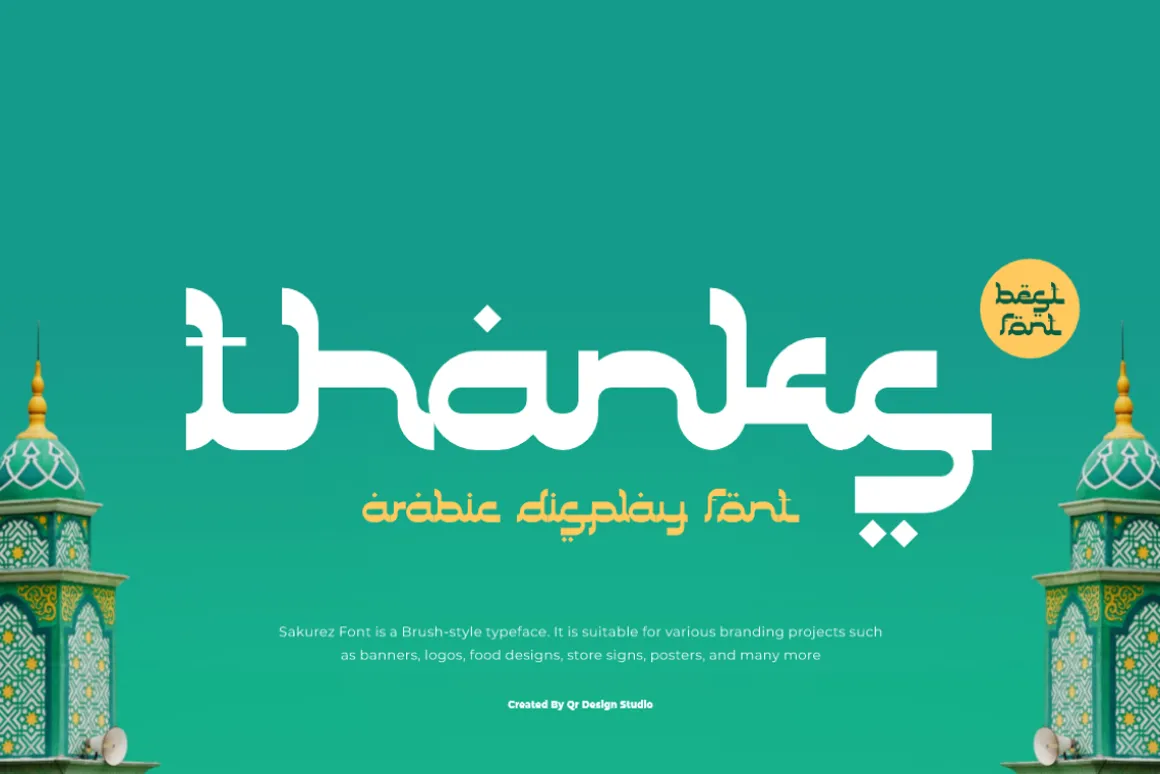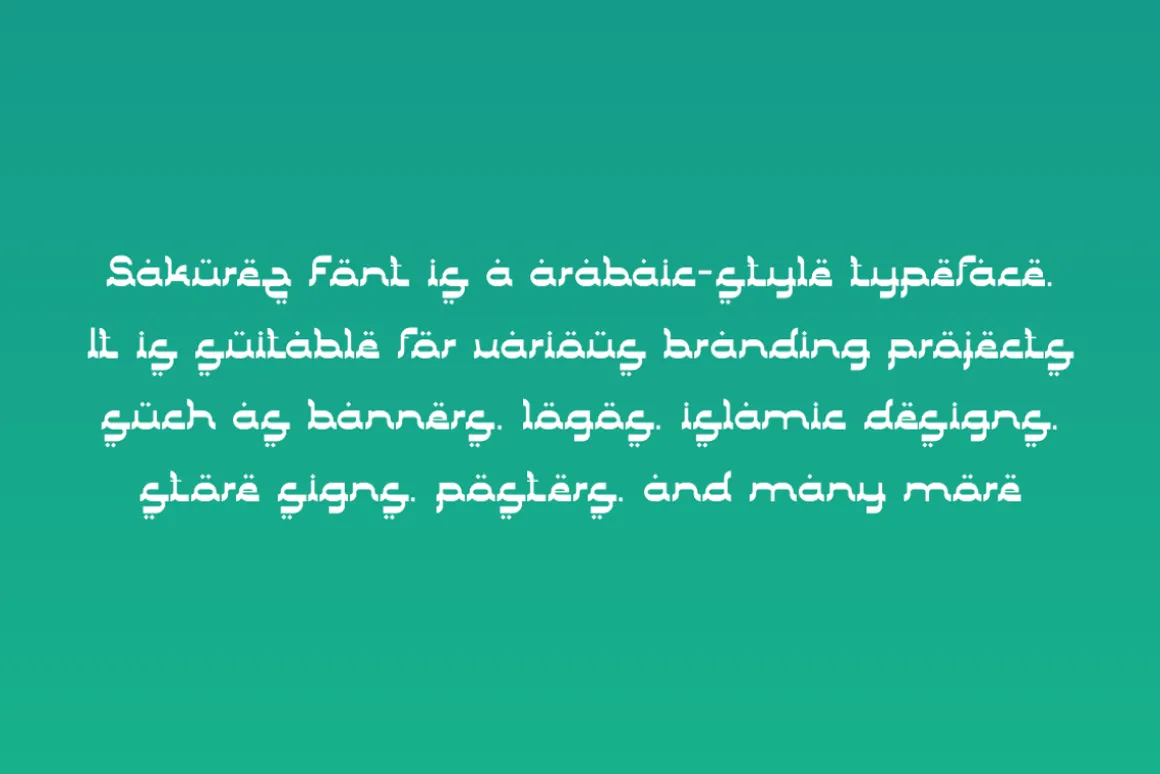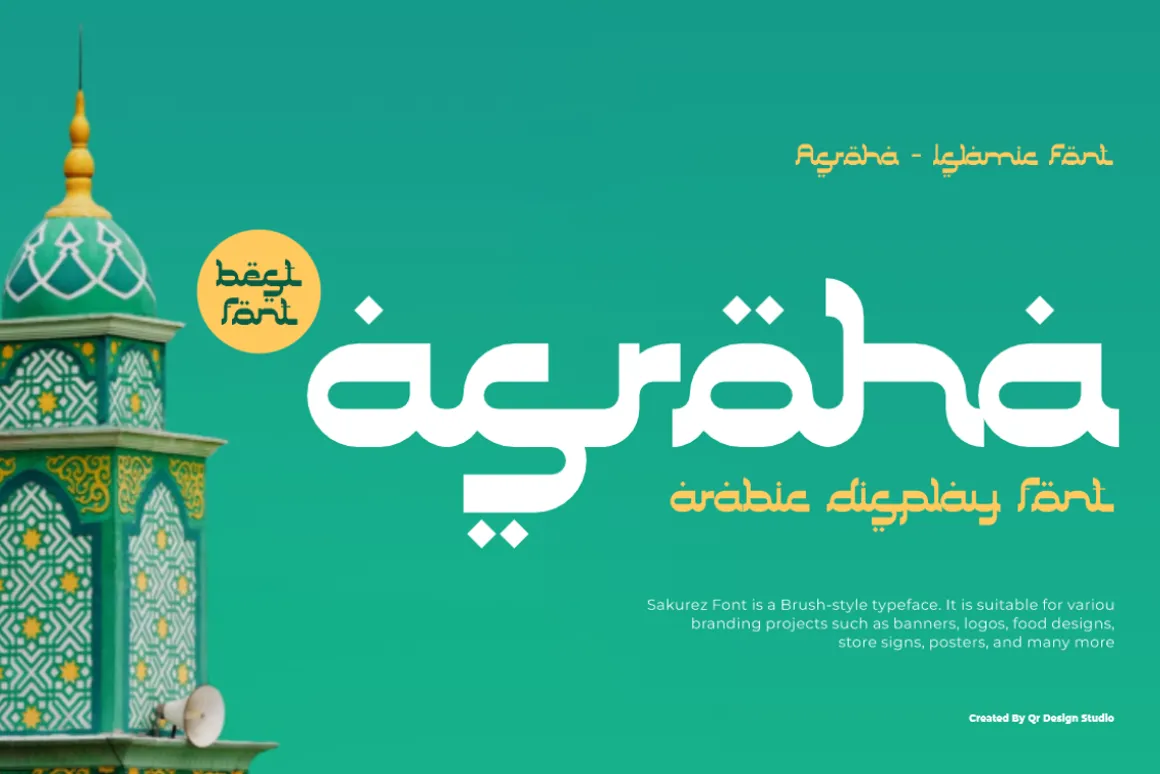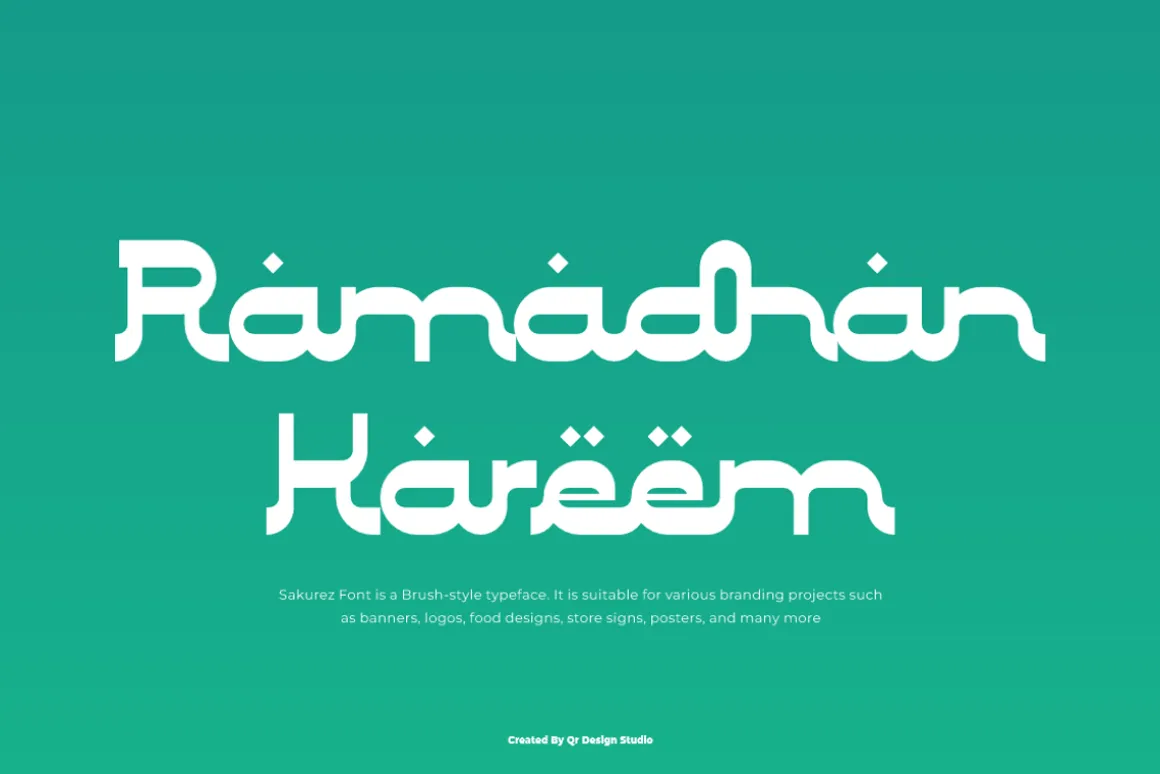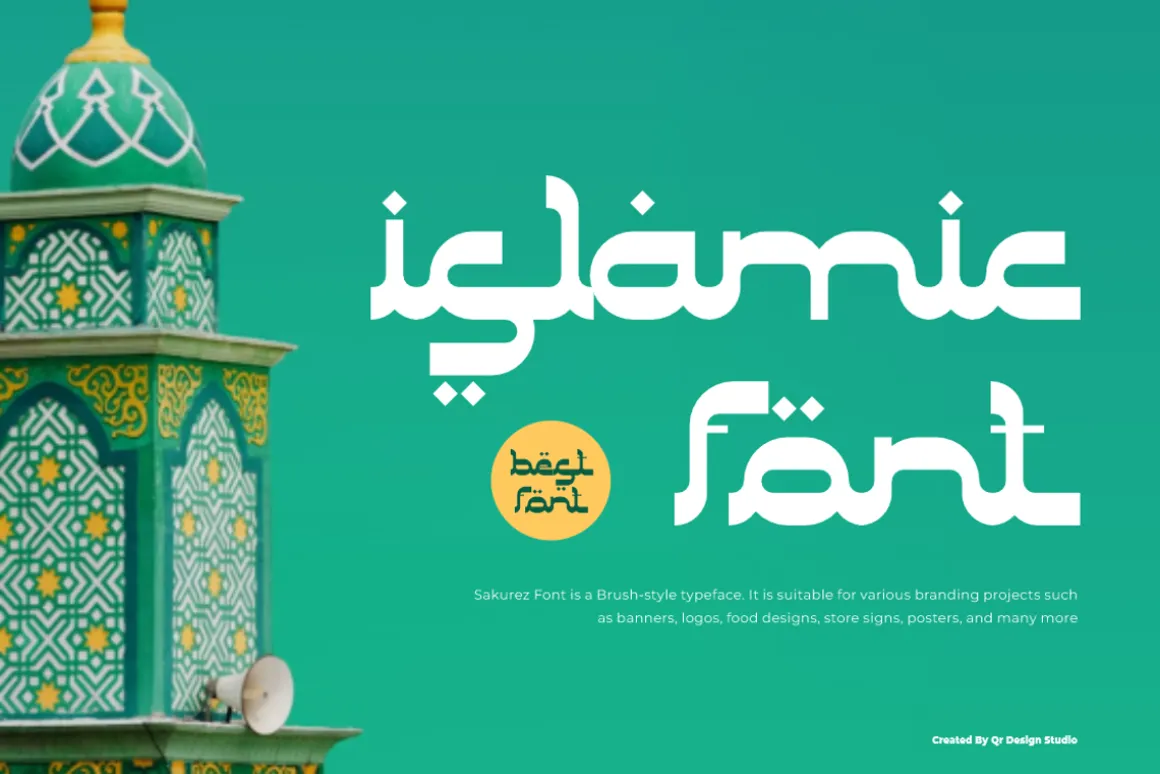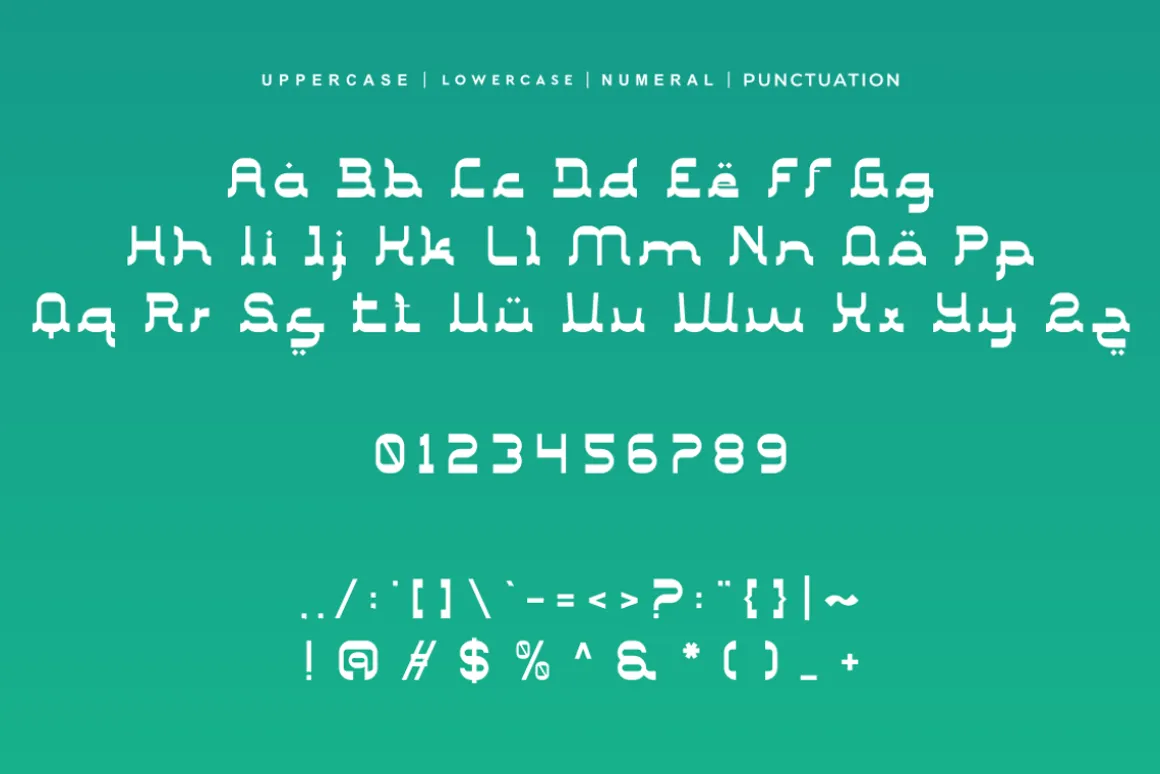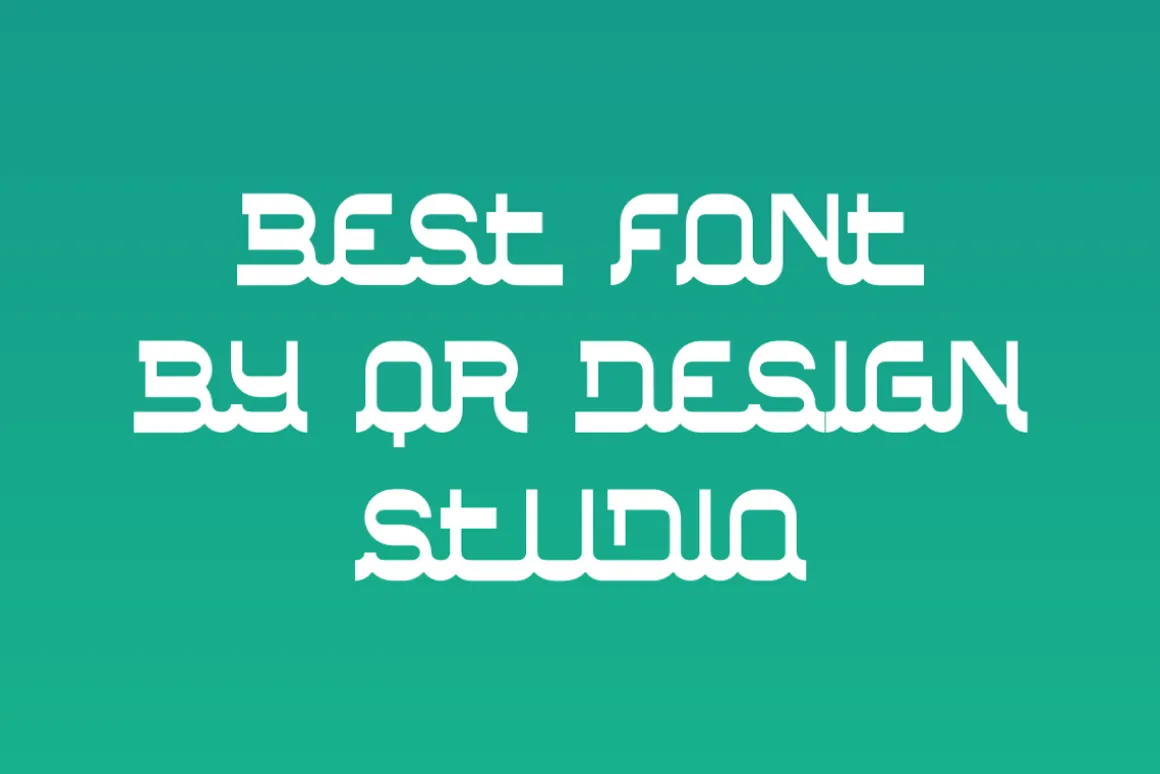
Asroha Font is a arabic and authentic display typeface.It’s perfect for various branding projects such as logos, islamic designs,and more. This font stands out beautifully in a wide range of contexts.